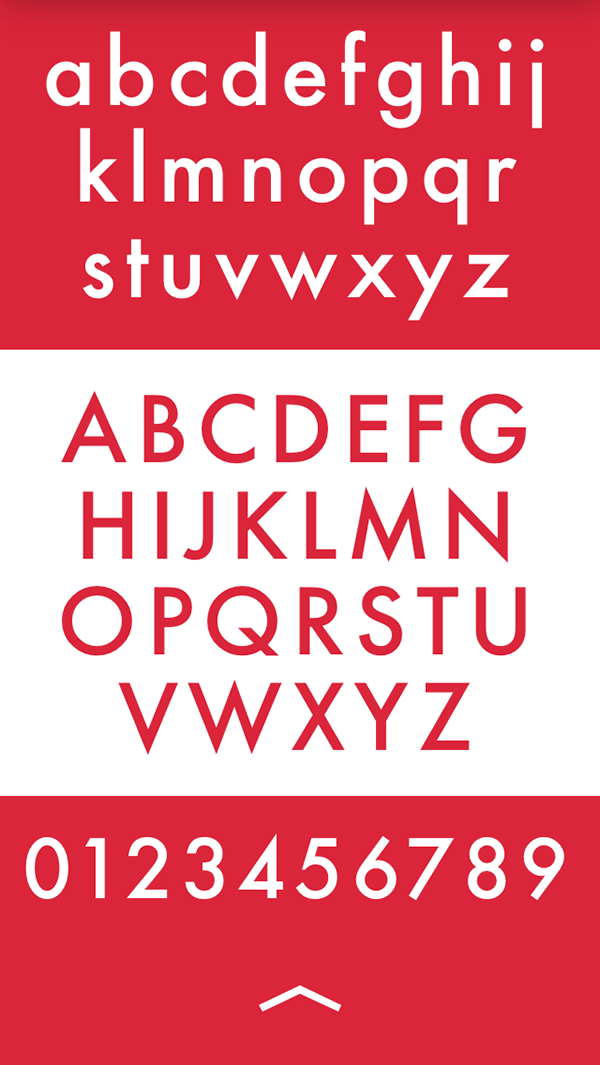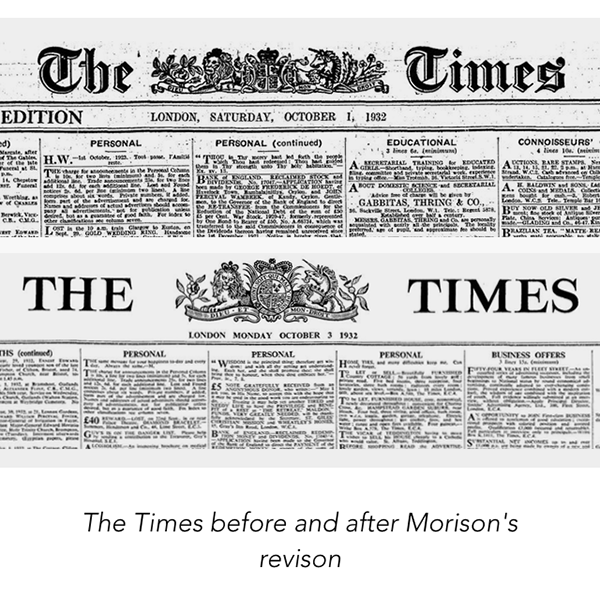
Typendium App Delivers Typeface Histories
As someone who “just isn’t that into” the intricacies and nuances of typography, I realize I could do with a little education on the subject now and then. Turns out, there’s an app for that. The Typendium app for iOS is a small—yet thorough—compendium of select typefaces and their history.
Created by designers Robyn Nevison and William Robinson in Newcastle Upon Tyne, Typendium is chock full of information about each typeface, including in-depth histories. That history starts with a nice biographical background of each designer, and showcases early and significant uses of the typeface being reviewed. For instance, I learned that Ben Franklin wanted to set The Declaration of Independence in Baskerville and that John Baskerville’s masterpiece was a bible in 1763, yet he was a fierce Atheist. I also learned that—as in the case of the personal life of Gill Sans’ creator—it’s possible to learn TOO much about the creators.
While the personal histories are interesting, I particularly like hearing the circumstances that led to the creation of each typeface. Even for someone like myself that doesn’t have a favorite typeface, I am able to have a deeper respect for what goes into creating type, especially the artistry is involved. If you’re like so many of my type-obsessed friends who will go so far as to debate the historical accuracy of a typeface used in a television show, Typendium will be a nice little addition to your app collection. And for those of you keeping track, the creators of Typendium helpfully indicate the app was set in Avenir.